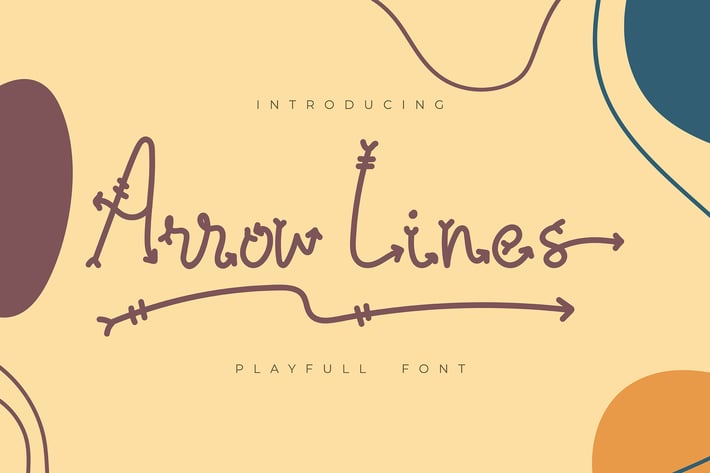
Arrow Lines | Playfull Font
Arrow Lines | Playfull Font with a calligraphy style, So beautiful on invitation like greeting cards, branding materials, business cards, quotes, posters, and more!